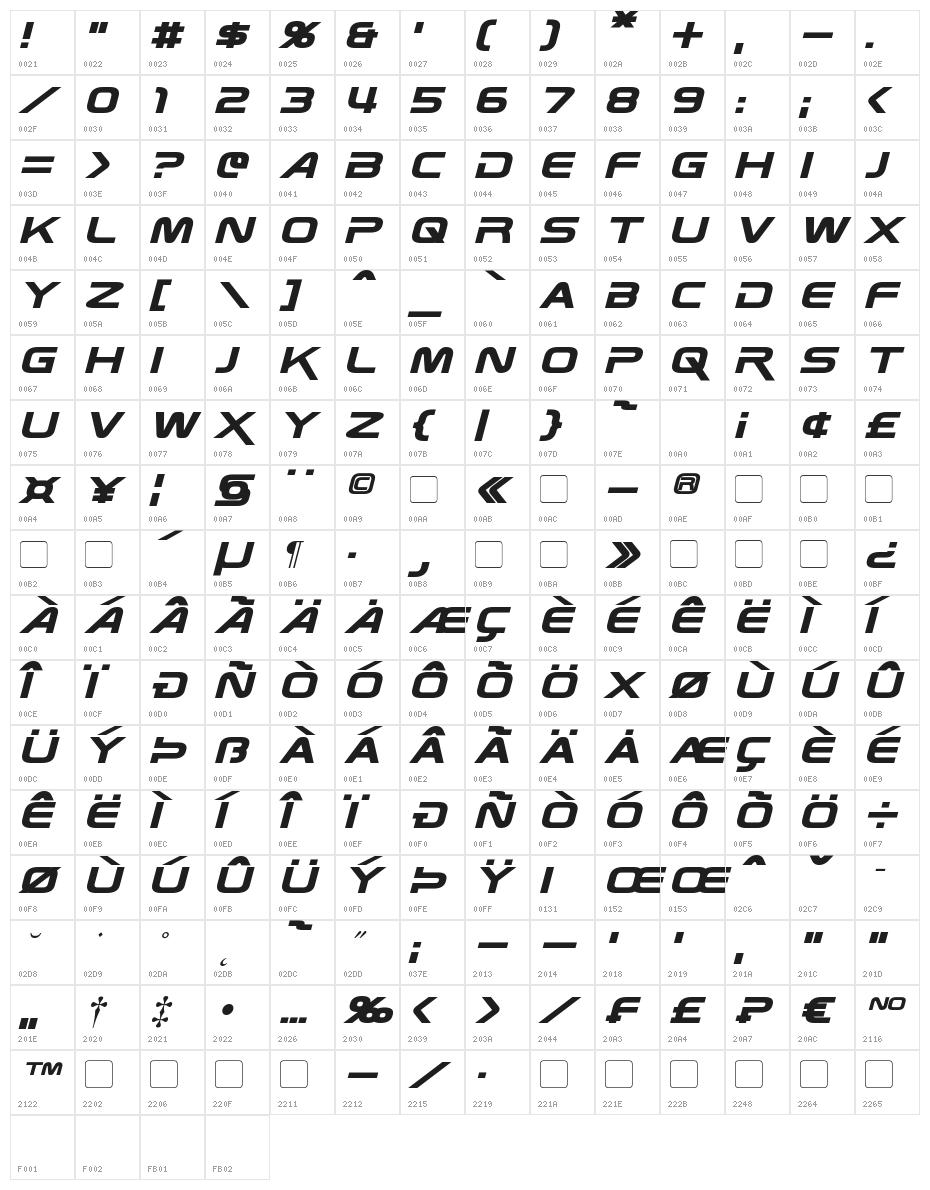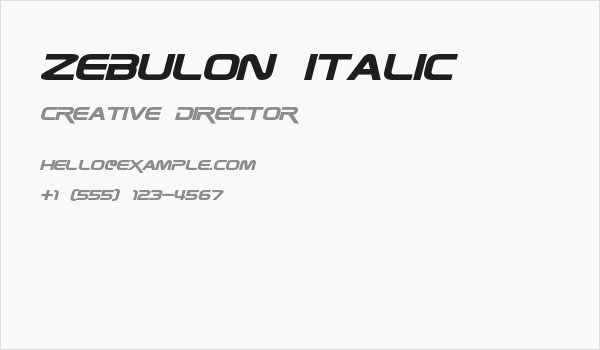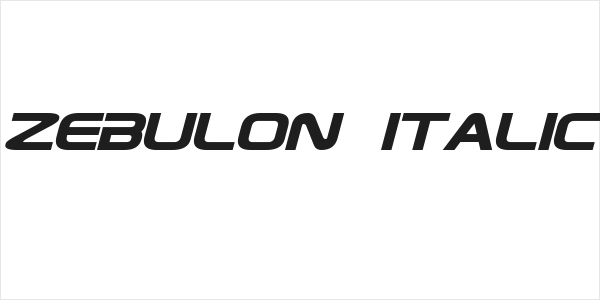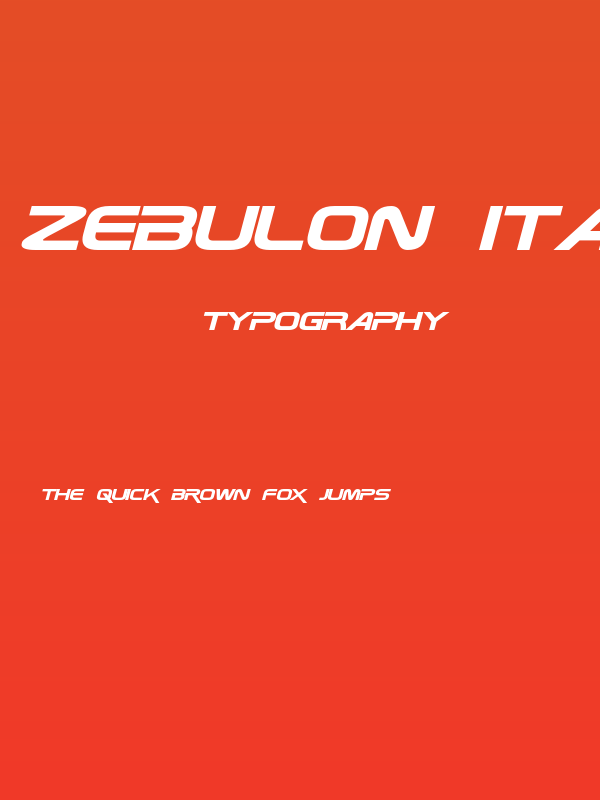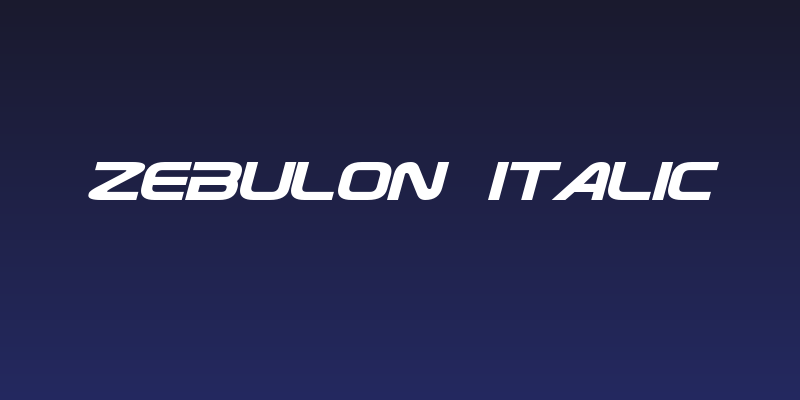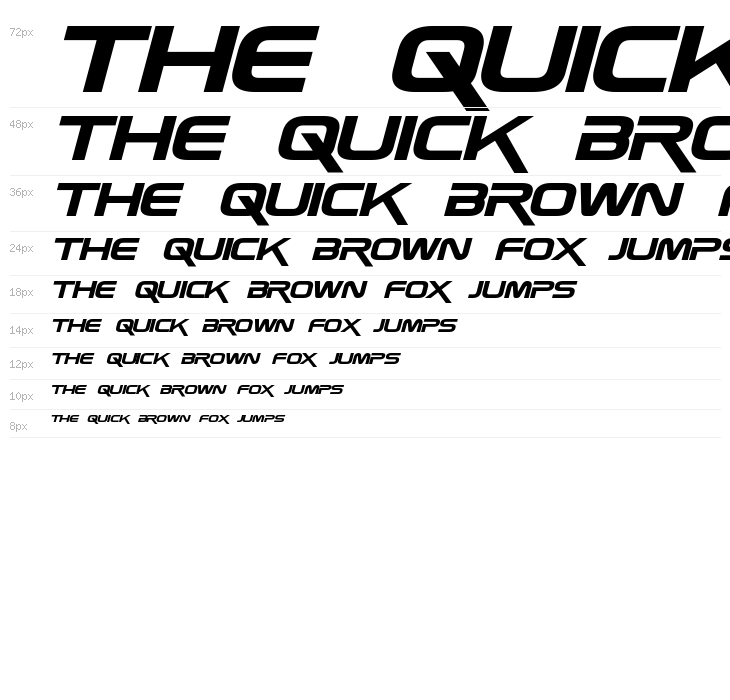
Zebulon Italic Font
Zebulon Italic Description
This font features a sleek, italicized design with a modern and futuristic appeal. The characters are bold and slightly condensed, giving a dynamic and energetic feel. The strokes are consistent in thickness, providing a uniform appearance across all characters. The angular cuts and sharp edges contribute to its contemporary style, making it suitable for projects that require a forward-thinking and innovative look. The numerals and special characters maintain the same stylistic elements, ensuring cohesion throughout any text. This font is ideal for use in technology-related branding, sports team logos, or any project that aims to convey speed and modernity.
| Use Case | Logos, Headlines |
| Proposed Projects | Ideal for technology branding, sports logos, and projects emphasizing speed and modernity. |